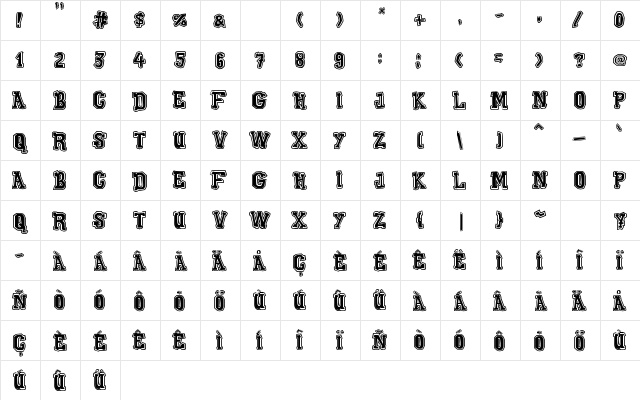
Xilo Galdino Outline Regular
Design Context for Xilo Galdino Outline Typeface
Xilo Galdino Outline brings ornamental detail and strong personality to headlines and identities, where visual impact matters more than quiet functionality.
Font Pairing: Pair with a clean neutral sans-serif for body copy to let Xilo Galdino Outline's character lead without overwhelming the composition.
Pro Tip: Use Xilo Galdino Outline exclusively at display sizes — it was designed to be seen, not read at length. Let a neutral companion handle body copy.